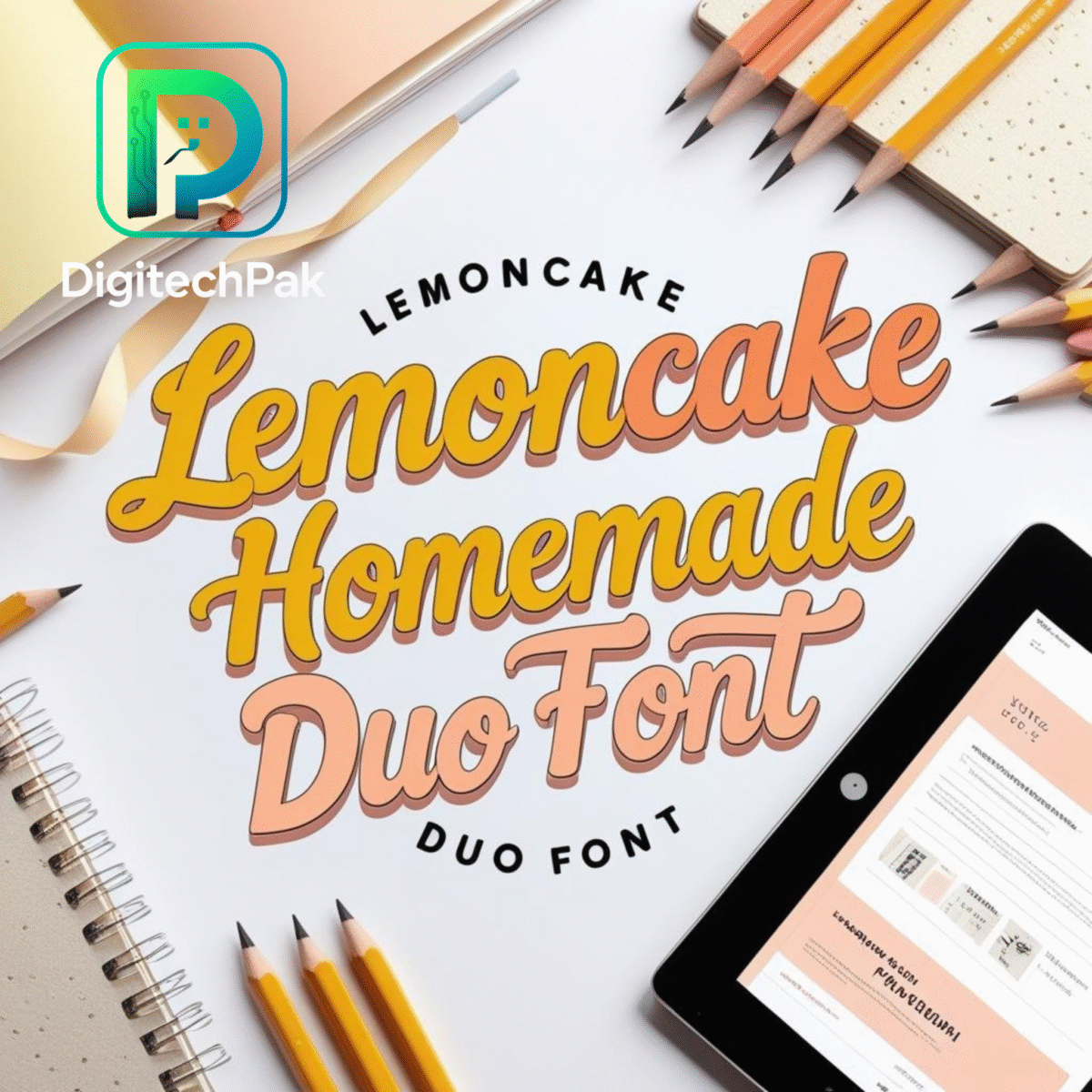
Add warmth and creativity to your designs with Lemoncake Homemade Duo Font — a playful script + sans font duo, instantly downloadable and easy to use.
The Lemoncake Homemade Duo Font brings charm and personality to your digital projects. This handcrafted duo combines a casual handwritten script with a clean sans serif, giving you versatile design options in one package.
Adds a personal touch to branding, websites, and marketing materials
Includes script + sans duo
Logos & Branding
Social Media Content
Website Headers
eCommerce Store Graphics
Marketing Campaigns